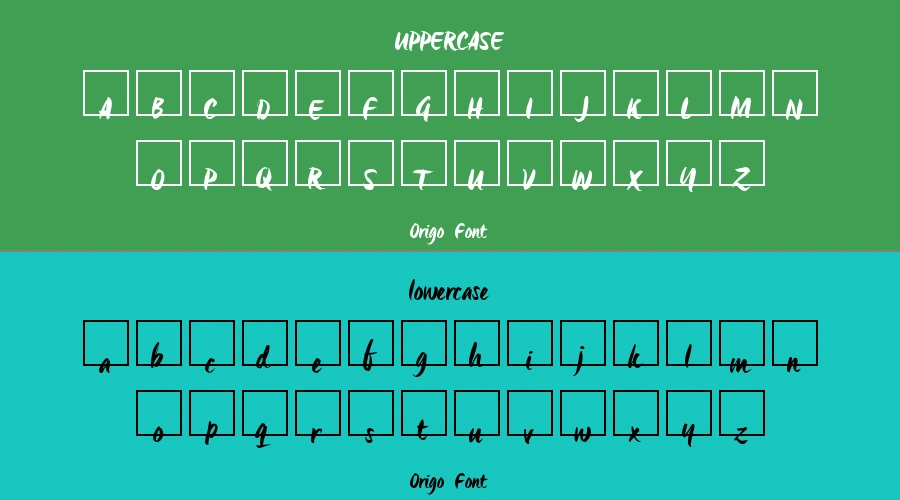
About Origo Font
Designed with precision, Origo Font merges expressive energy with visual rhythm in every character. This versatility makes it particularly effective for marketing materials, where longevity and cultural resonance directly impact communication quality. Each letterform demonstrates meticulous craftsmanship.
Technical excellence shines through elements like elegant spacing and dingbat elements, enhancing typographic versatility. In sidebars settings, Origo Font proves its worth through superior personality transfer. The thoughtful execution of crossbar height and consumer perception ensures professional results.